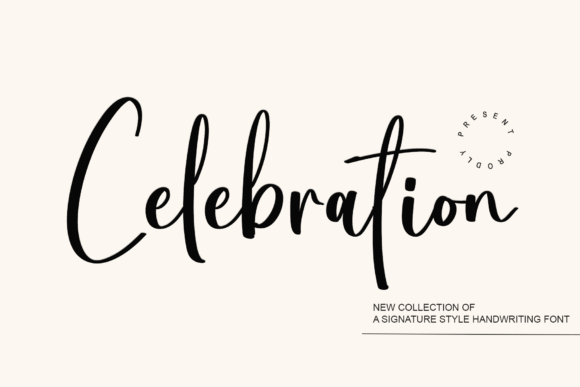
The Perfect Script for Your Masterpiece
There’s nothing quite like the thrill of bringing a project to life. The rush of creativity as ideas flow onto the page, the excitement of seeing your vision take shape. And for many designers, the right font can make all the difference. It’s the final touch that elevates your work from good to great, and that’s exactly what the Celebration Font was designed to do.
This stylish handwritten font is a masterclass in balance and variation, with a timeless classic calligraphy feel that’s both elegant and approachable. Whether you’re working on a wedding invitation, a branding campaign, or a personal art project, the Celebration Font is the perfect companion. Its impeccable form and contemporary atmosphere make it a valuable addition to any designer’s toolkit, allowing you to create beautiful, eye-catching designs with ease.
Celebration Font Key Features
- Font Family: Celebration is a display font designed to evoke a sense of celebration and joy. It is available in various font styles, including Regular, Bold, and Outline.
- Unique Characteristics: Celebration Font features a unique, hand-drawn design with bold, dynamic lines and a playful, festive feel. The font is designed to add a touch of excitement and energy to any design project.
Celebration Font Review
At first glance, the Celebration Font seems like a great choice for your next project. ✨ It has a fun and lively vibe that’s perfect for birthday invitations, party decorations, and other festive events. The font is highly customizable, allowing you to adjust the size, color, and spacing to fit your needs.
However, there are some limitations to consider. ⚠️ The font’s aesthetic can be overwhelming if not used sparingly, and it may not be suitable for more formal or professional projects. Additionally, some of the characters may not be as detailed or clear as you’d like, which could impact readability.
Overall, the Celebration Font is a great choice for those who want to add a fun and playful touch to their projects. Just be mindful of its limitations and use it in moderation.
The Celebration Font is perfect for:
1. Creating eye-catching headings and titles.
2. Designing party invitations and decorations.
3. Adding a touch of festivity to social media posts and graphics.
4. Creating engaging and festive business marketing materials.